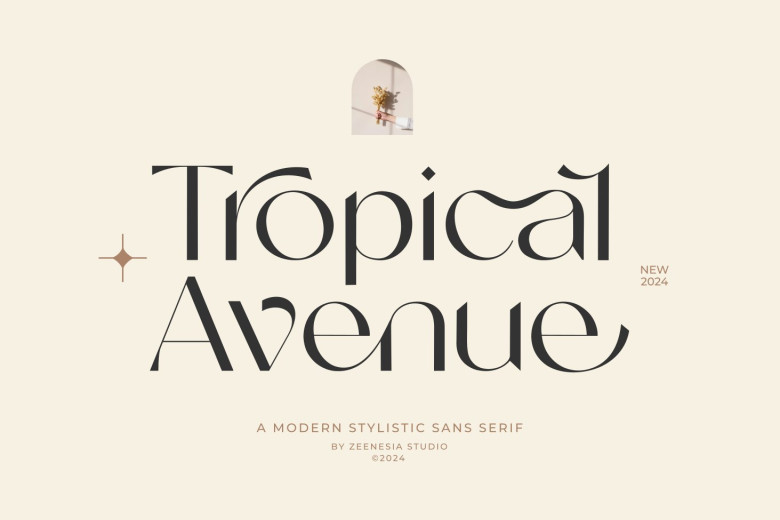
Tropical Avenue Font
Tropical Avenue is a stylish font designed with sans serif elements. This sophisticated font boasts both modernity and classicity in its look and is great for large projects that need something exciting! Ideal for editorial projects logo design, web fonts, branding, packaging, products, magazine, headers as well as simple text overlays on images.
Tropical Avenue Sans Serif Font